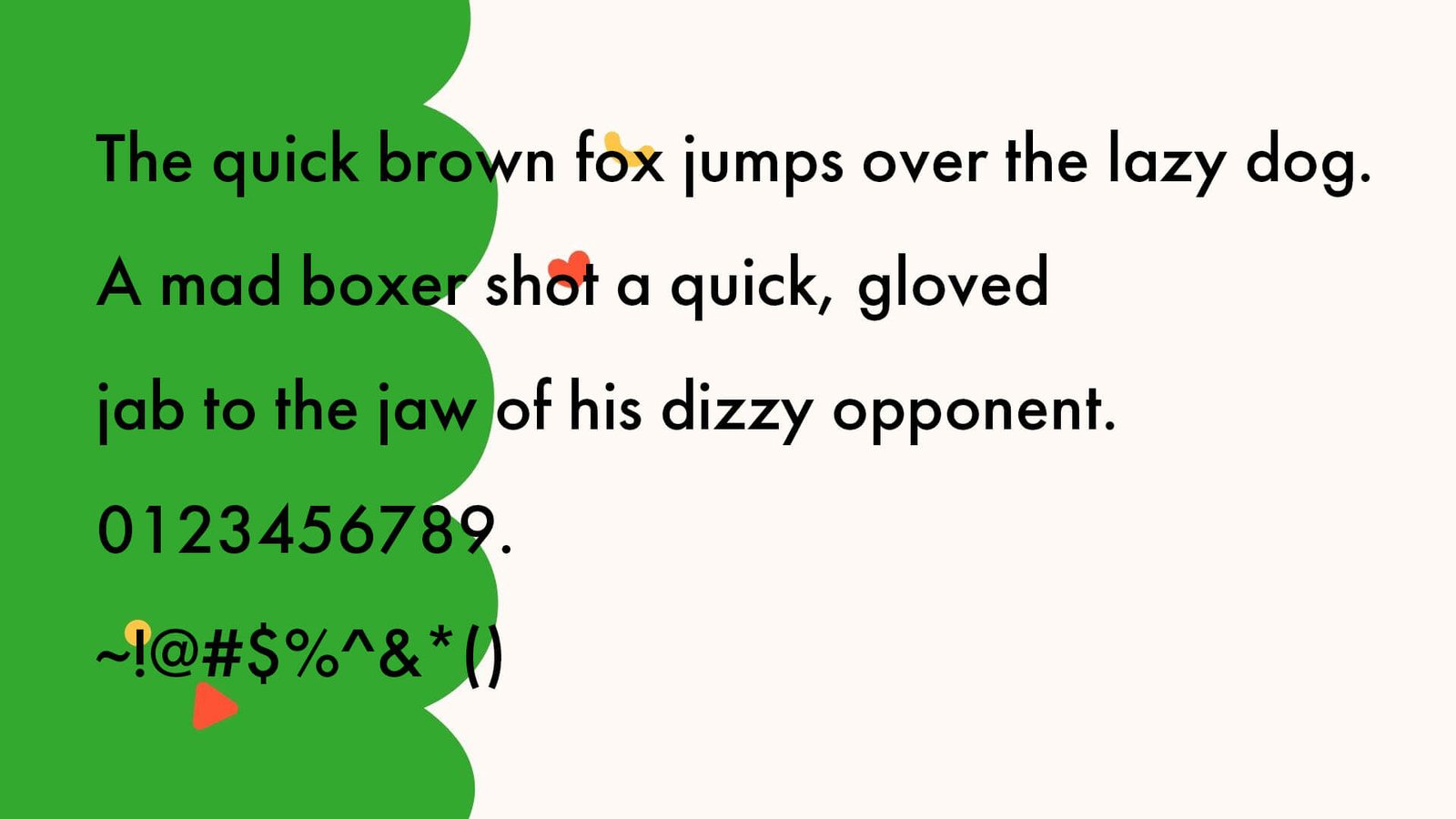
The Futura font was originally created by Bauer Type Foundry. In 1933, Paul Renner gave this font a new design. It is a sans-serif typeface that has a sleek and modern appearance. Top designers in various fields use this stylish and clean font for their projects.
It has all the attributes and features that can be perfect for any design. This gorgeous font has an organized and clean structure. That’s why it is very easy to read. Pairing this futurama font will be a good choice for different designs.
| Name | Futura Font |
| Designer | Tobias Frere Jonas |
| Type | Sans Serif |